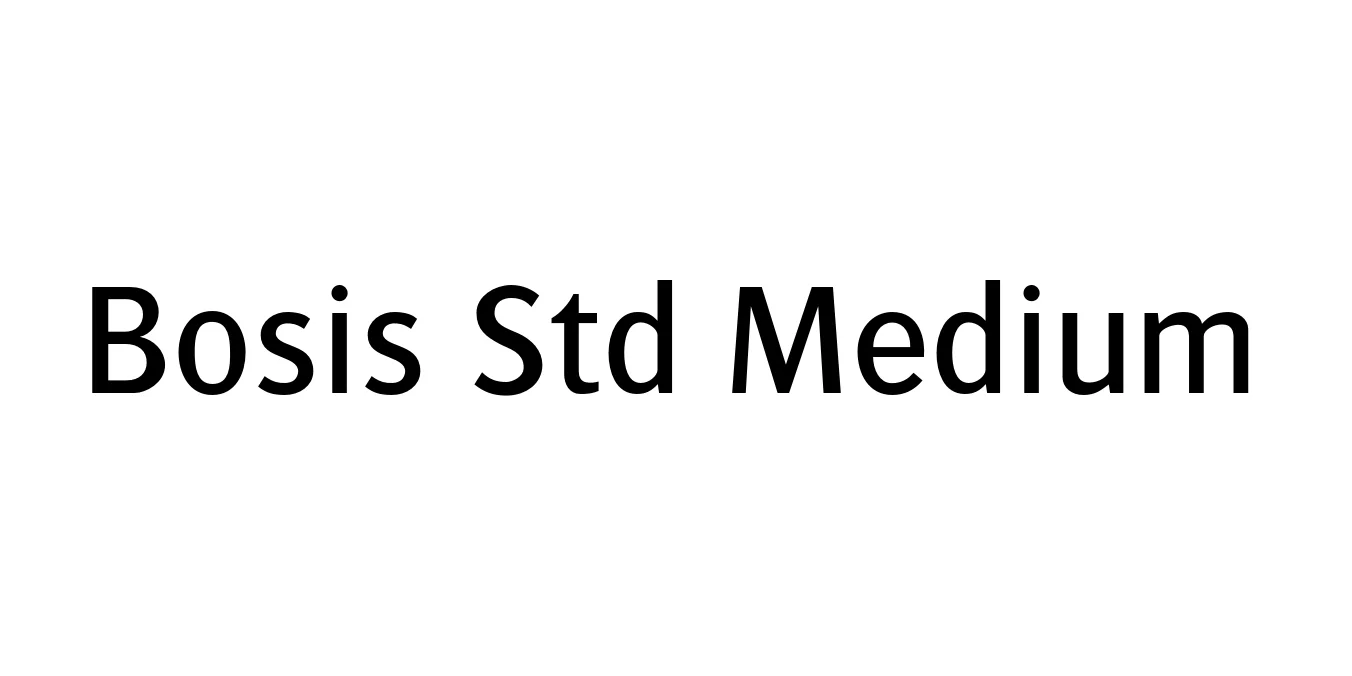
Bosis Std Medium
Designed by Dalton Maag
Bosis Std Medium is a sophisticated sans-serif typeface meticulously crafted by the renowned design studio Dalton Maag. It was engineered to provide a harmonious balance between a humanist skeleton and modern geometric construction, resulting in a typeface that is both aesthetically pleasing and highly functional. The Medium weight specifically offers a sturdy presence on the page without sacrificing the elegant curves and open apertures that define the Bosis family.
This typeface is highly regarded for its exceptional legibility across various platforms, making it a staple for high-end corporate branding and editorial projects. Whether used for digital interfaces or printed marketing collateral, Bosis Std Medium maintains a neutral but distinctive personality that communicates professional reliability and contemporary style, ensuring it meets the rigorous standards of modern typographic design.
Bosis Std Medium Best Uses
Perfect for developing consistent and professional brand guidelines.
High clarity makes it excellent for mobile apps and web navigation.
Adds a modern touch to brochures, posters, and flyers.
Well-suited for both headlines and short passages of body text.